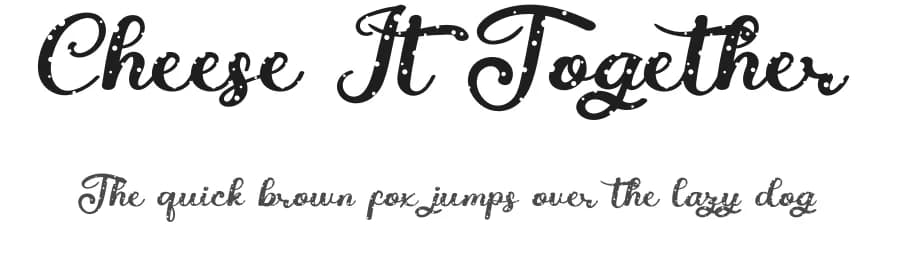
About Cheese It Together Font
Cheese It Together is a chic, refined script font that emanates sophistication and elegance. Its stylish alternates and ligatures make this font the perfect match for any project.
Cheese It Together Specifications
| Font Family | Cheese It Together |
| Full Name | Cheese It Together |
| Glyph Count | 141 glyphs |
| PostScript Name | CheeseItTogetherRegular |
Cheese It Together supports 209 languages.
Cheese It Together Font is a script font that shines as a display or heading face. Pair it with a clean sans-serif or serif font for body text β the contrast creates a clear hierarchy while the two styles stay balanced and easy to read.
Cheese It Together Font